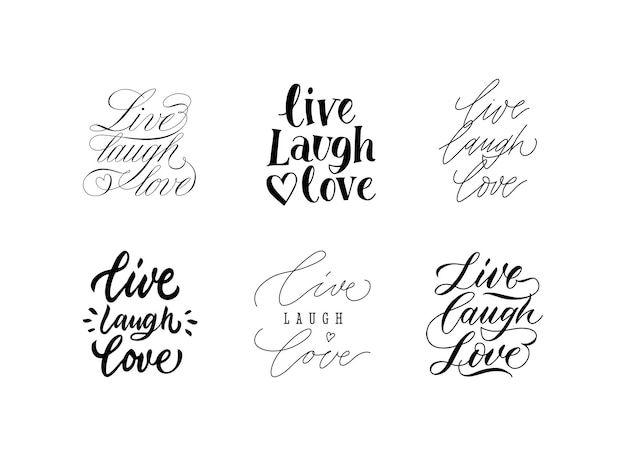
Live laugh love lettering inspirational calligraphy font slogan for wedding posters or home decorations prints hand drawn typography motivation text vector set